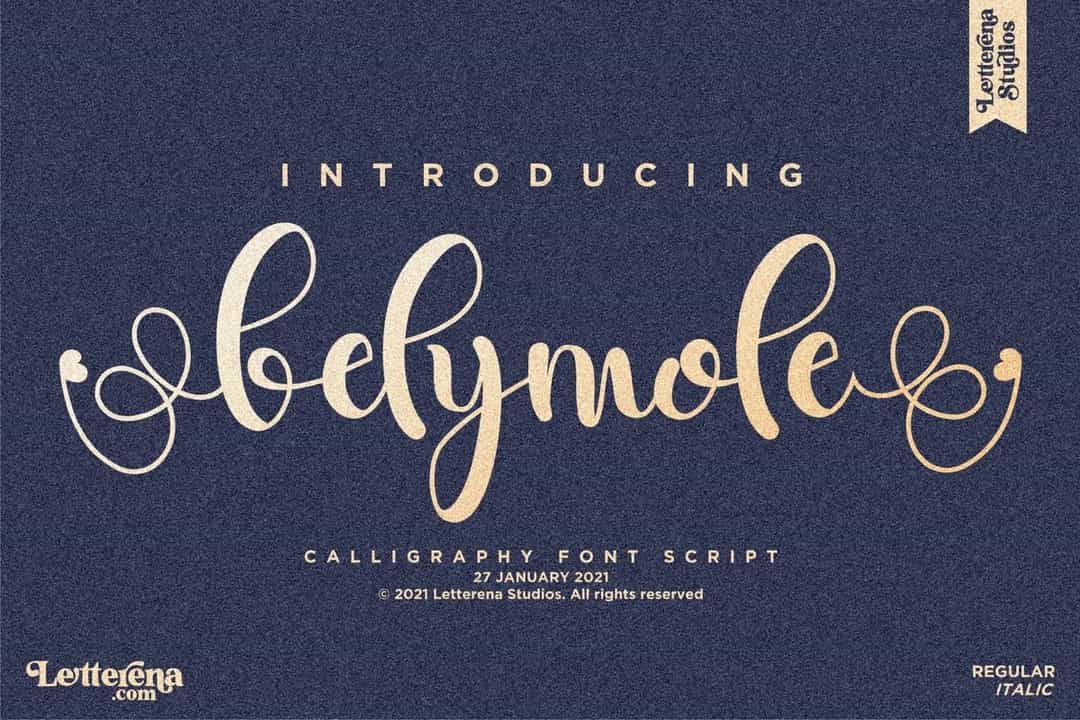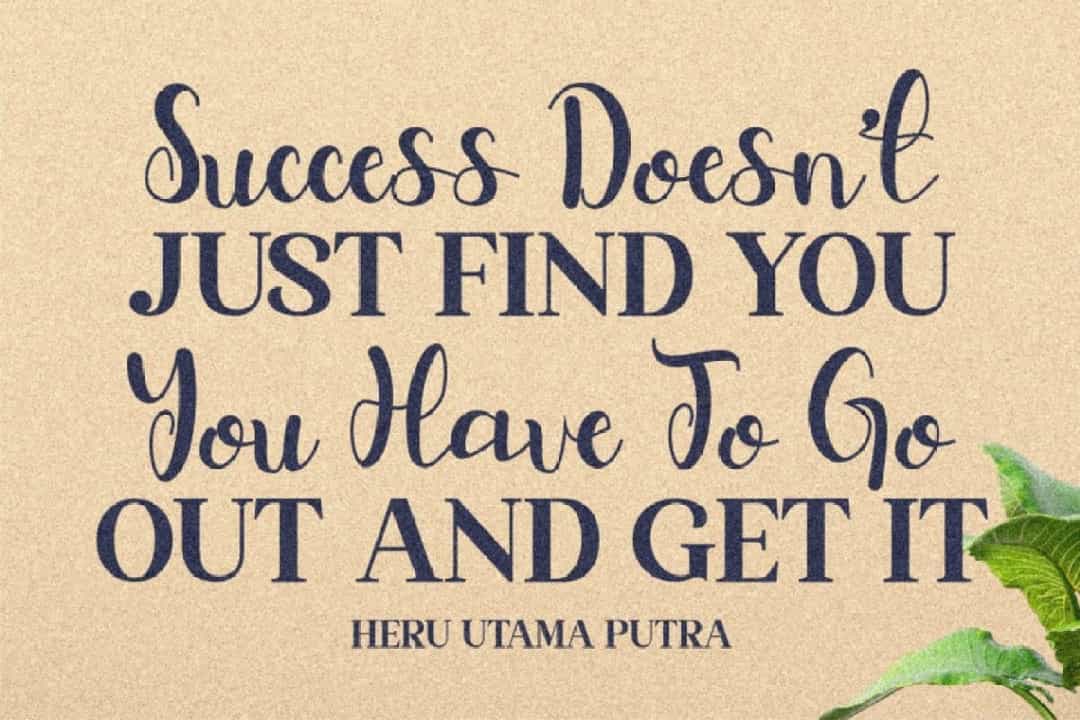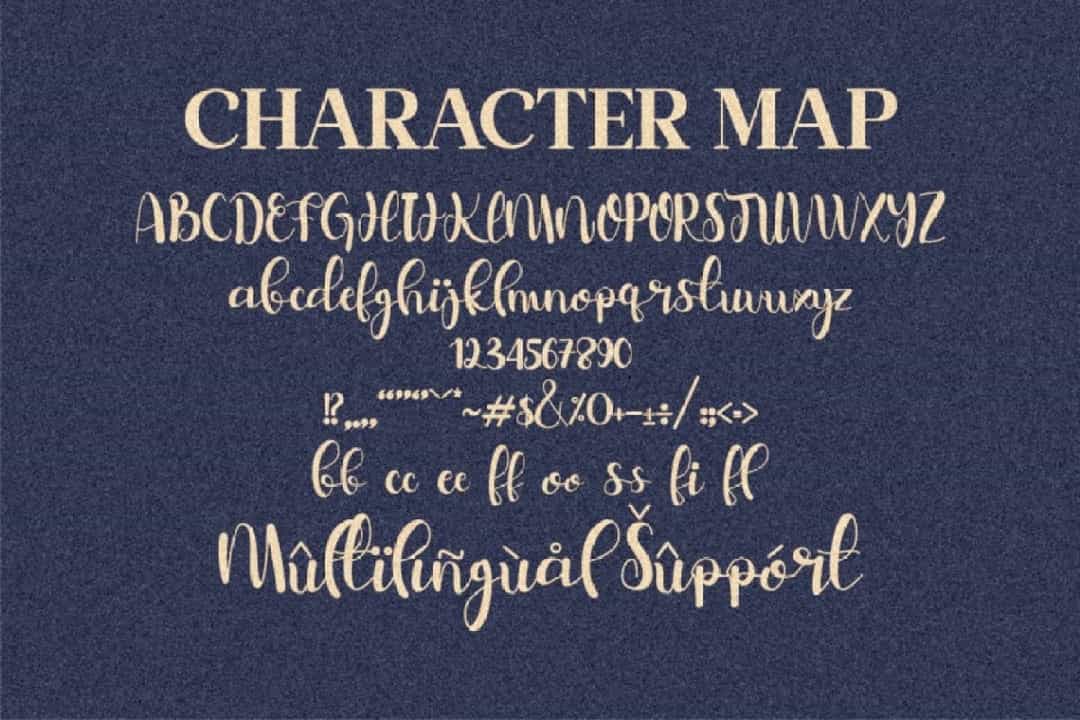
Belymole is a beautiful font that can be used in all kind of designs such as logos, branding, homeware product packaging and mugs, quotes bags for shopping, posters T-shirts book covers name cards invitation cards greeting cards labels photo watermark as well as special events or any type of project that needs beautiful script design.